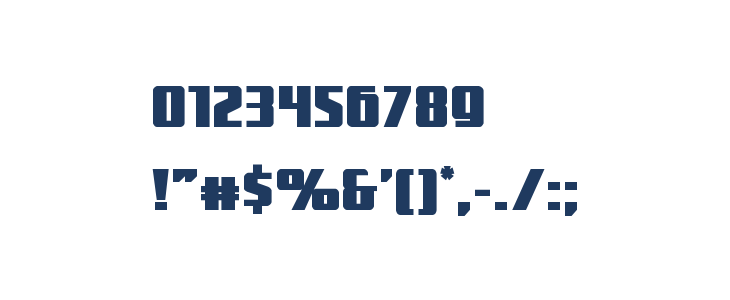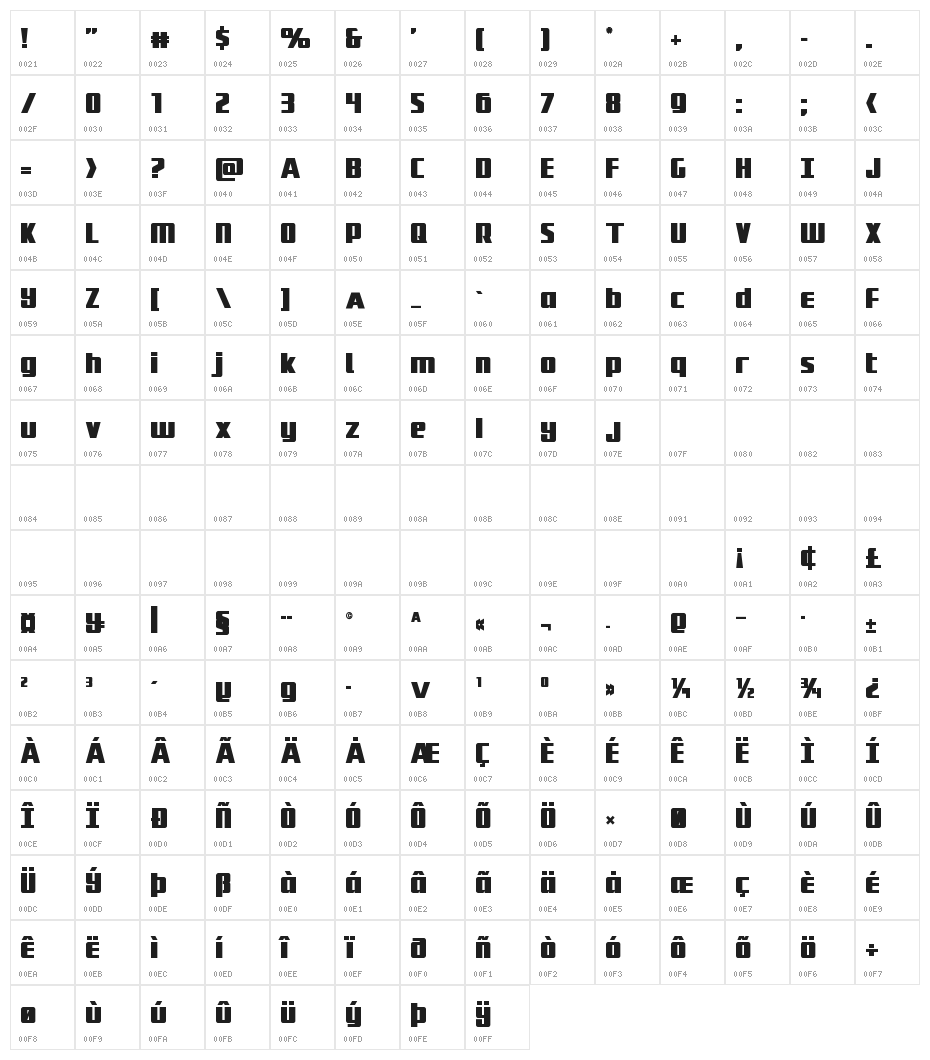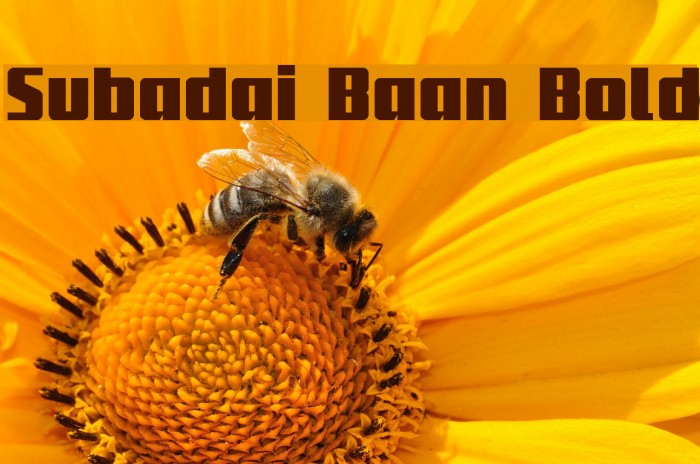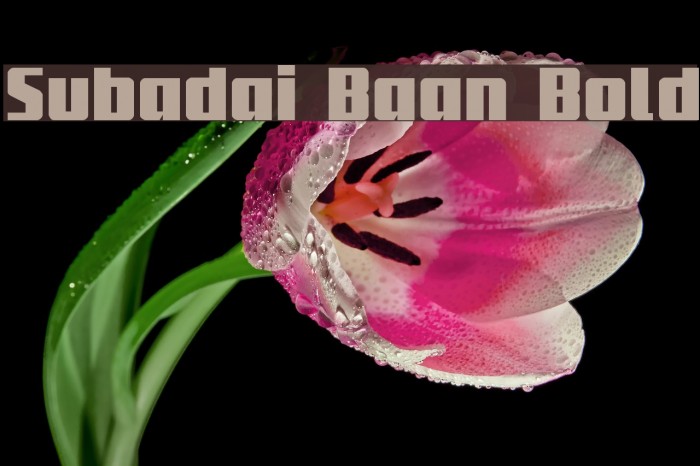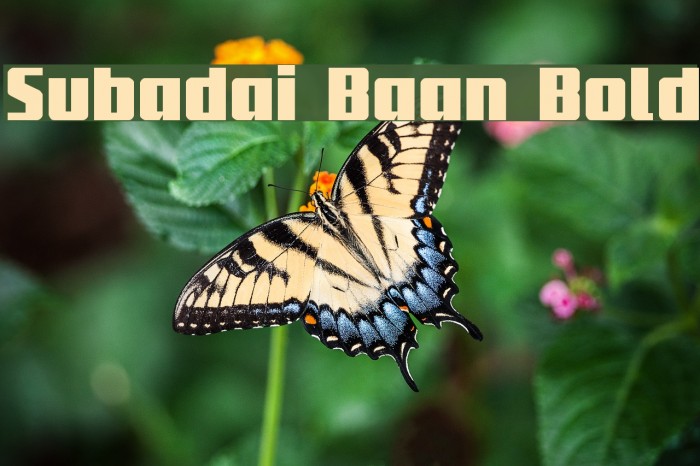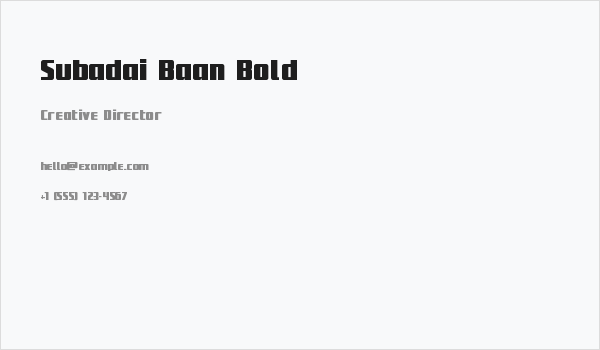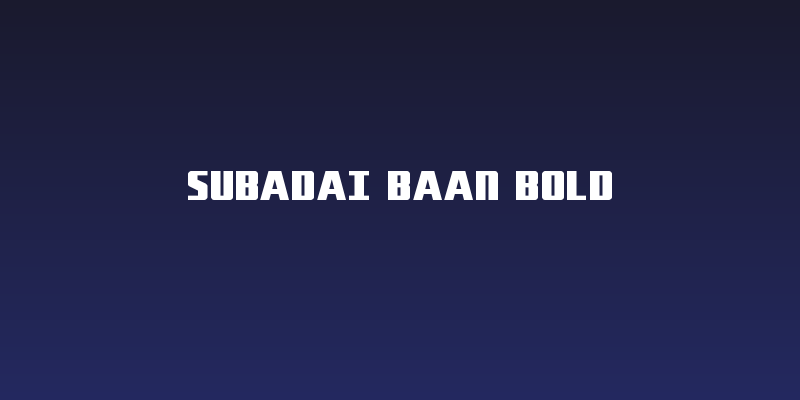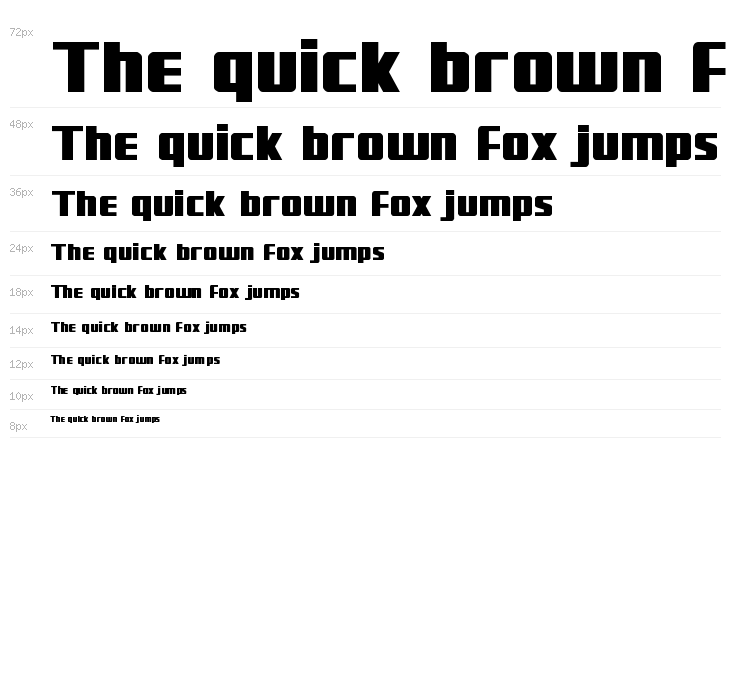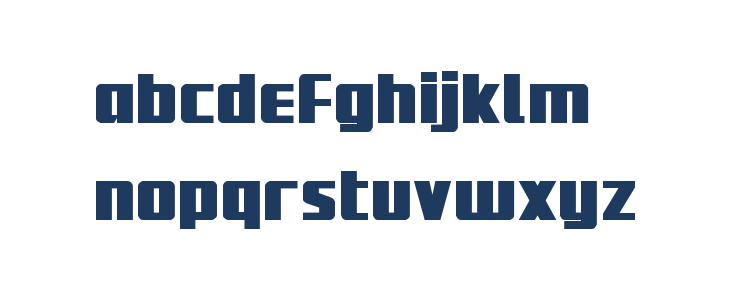
Subadai Baan Bold Font
Subadai Baan Bold Description
This font features a bold and impactful design with strong geometric shapes and a modern aesthetic. The uppercase letters are uniform in height, creating a cohesive and structured appearance. The lowercase letters maintain the boldness, with some characters like 'e' and 'g' showing unique, angular cuts that add a distinctive flair. The numerals are equally bold, ensuring visibility and clarity. Special characters are designed to match the overall robust style, making them suitable for attention-grabbing headlines or branding materials.